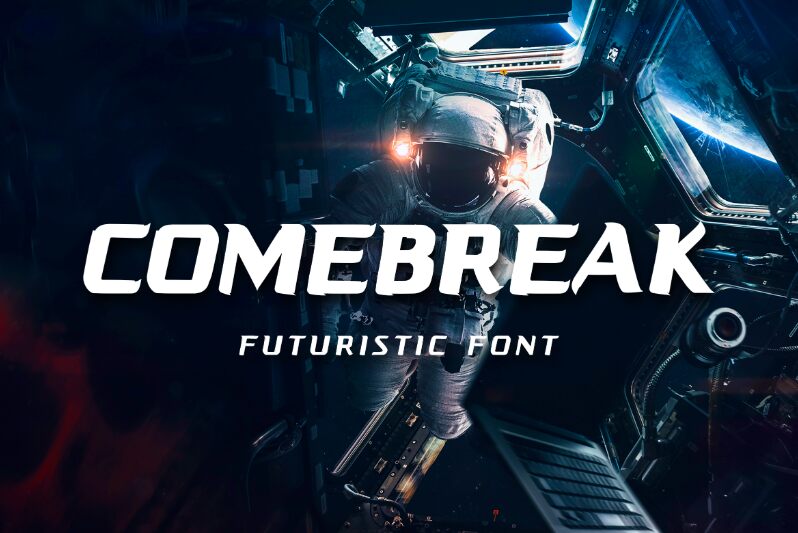
COMEBREAK
Comebreak font by UI Creative is a display font with an expanded width and a race-inspired modern design. Its angular and aggressive letterforms give off an energetic feel for eager spectators. Sharp terminals, points, and corners ground the characters’ formation to make them stable while in motion.
Introduce Comebreak to your posters, magazine covers, headlines, headers, social media banners, packaging designs, advertisements, product packages or labels, book covers/inner pages.